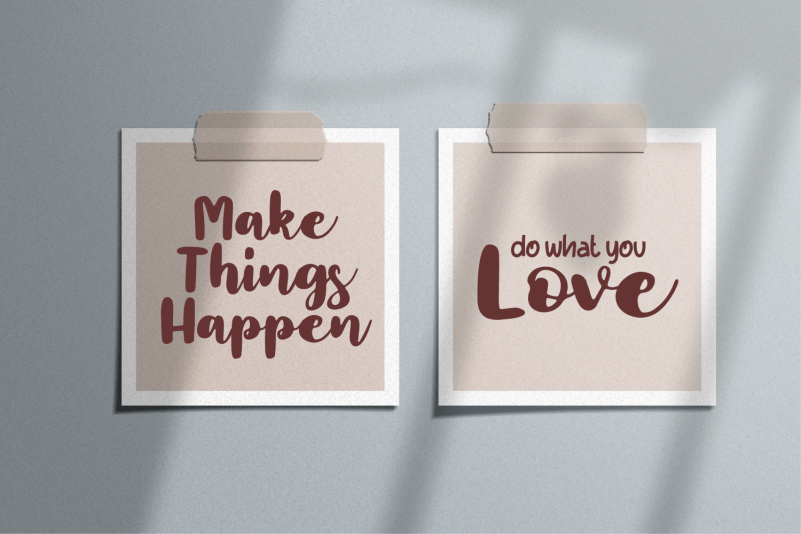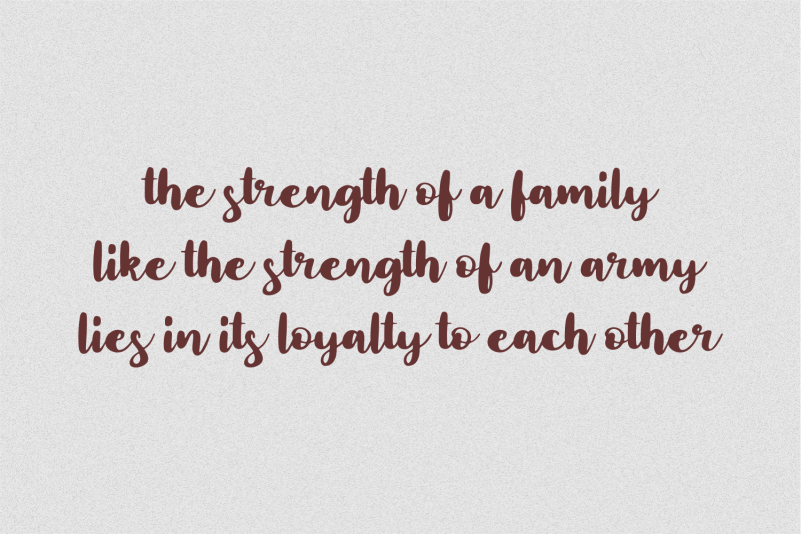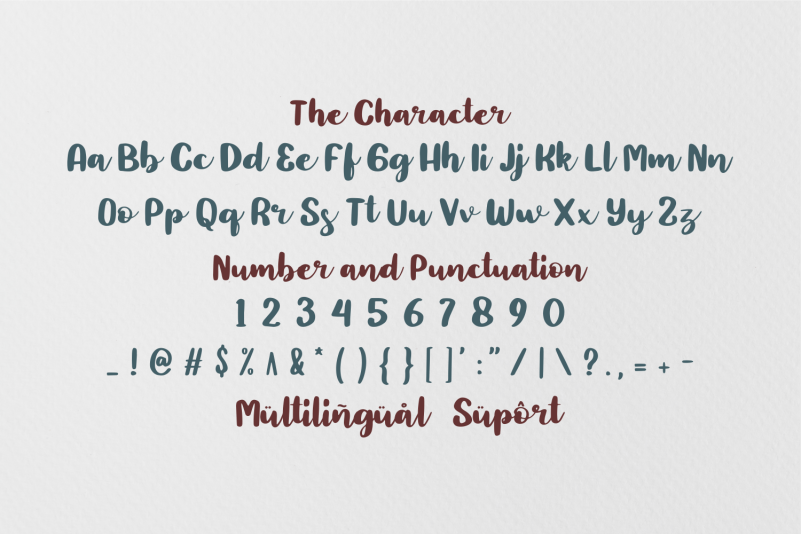
Abulonia Font
Abulonia Script Font is a delicate and elegant handwritten font. Its distinct and well balanced letters make this font a masterpiece. Fall in love with its incredibly versatile style and use it to create spectacular designs!